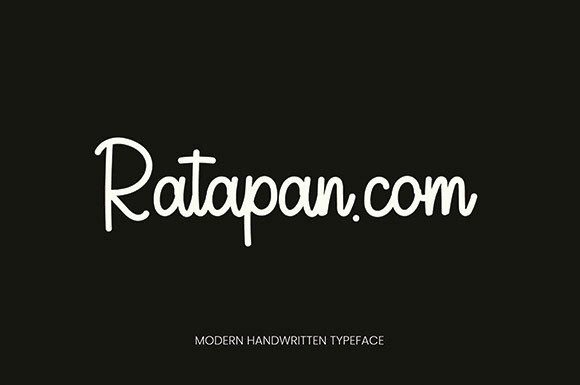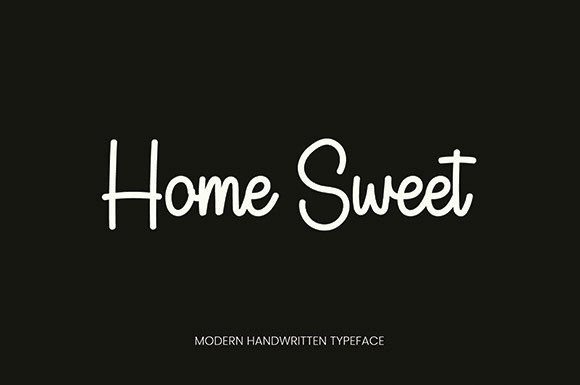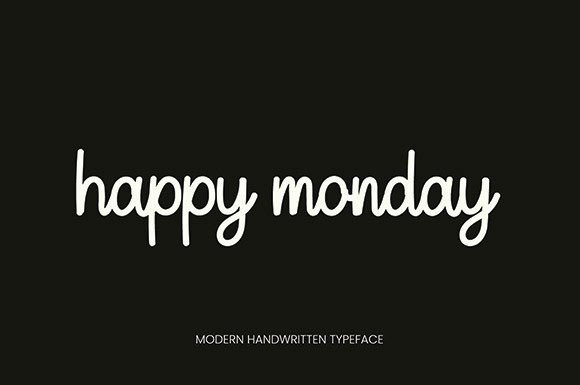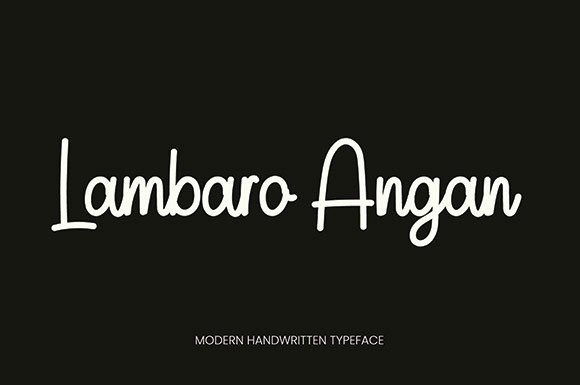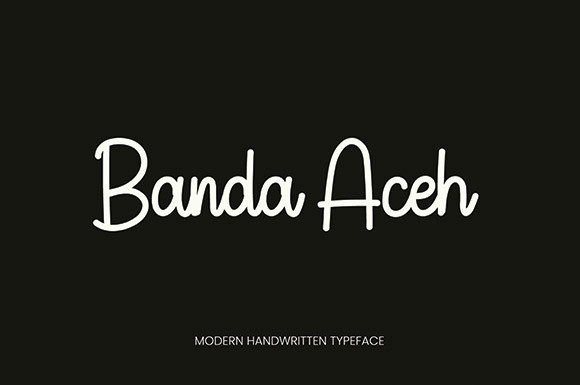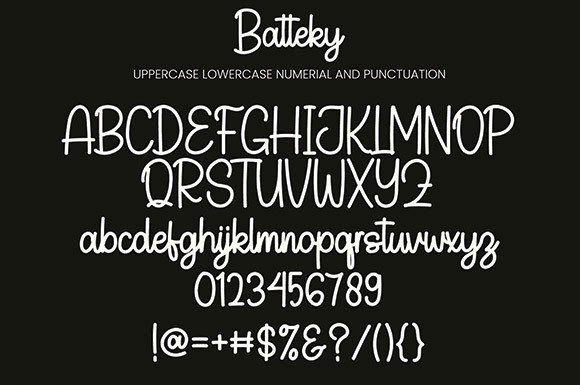
Introduction to Batteky Font
Batteky font with a new style, this font will be suitable for various projects such as quotes, logos, blog headers, posters, ribbons, fashion, clothing, letters, invitations, stationery, etc….
Batteky font with a new style, this font will be suitable for various projects such as quotes, logos, blog headers, posters, ribbons, fashion, clothing, letters, invitations, stationery, etc…
Key Features of Batteky Font
Batteky Font offers exceptional quality and versatility, making it a valuable addition to your design toolkit. Whether you’re creating for personal projects or commercial use, Batteky Font delivers professional results.